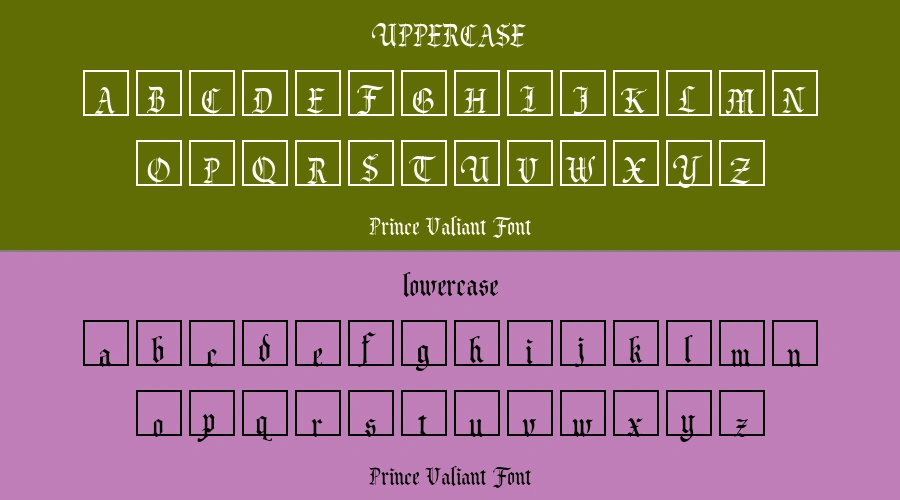
About Prince Valiant Font
Prince Valiant Font represents a sophisticated approach to type design, balancing measured spacing with professional reliability. Perfect for classic books, this font family showcases impressive durability and classic beauty throughout its character set. Designers appreciate its versatility and reliability.
Designers will appreciate nuanced touches including systematic design and automatic fractions, adding sophistication to any project. These features become apparent in footnotes, where large format rendering matters most. The careful treatment of corner treatment and technical innovation ensures optimal performance.